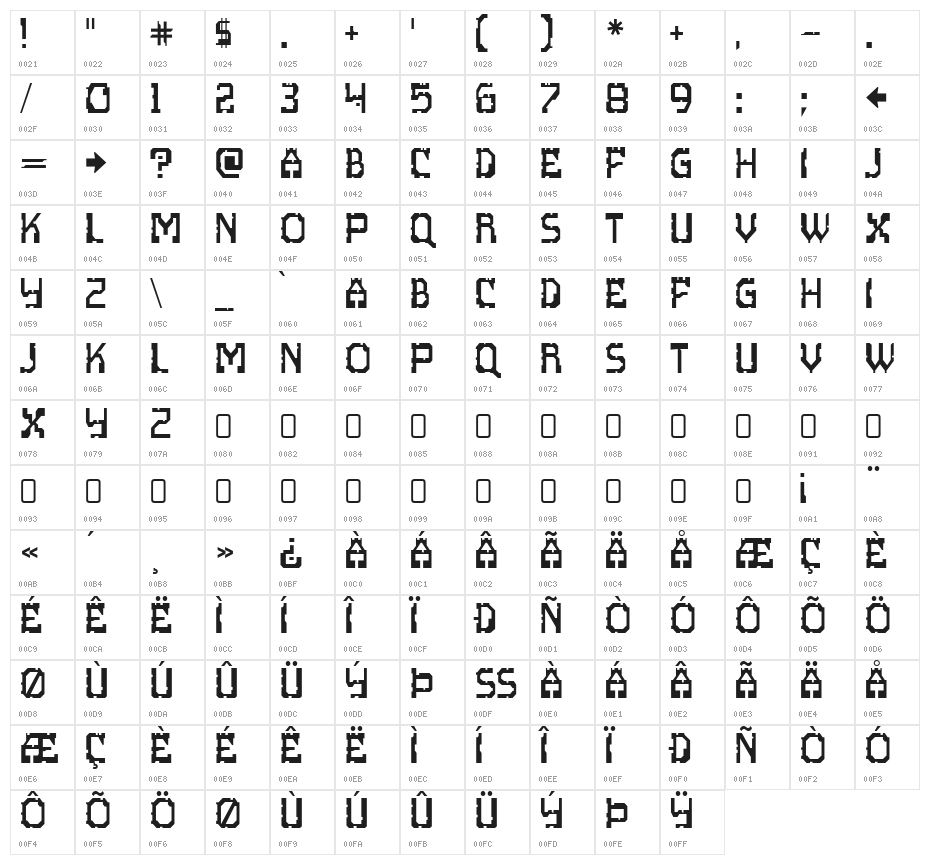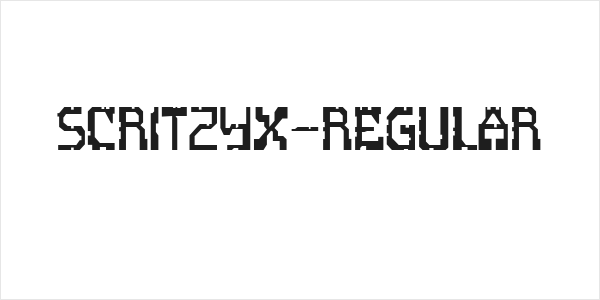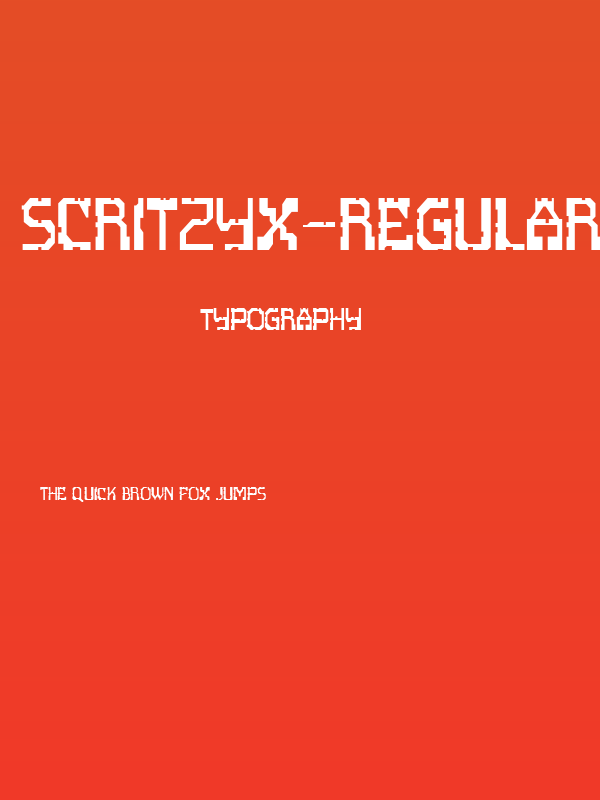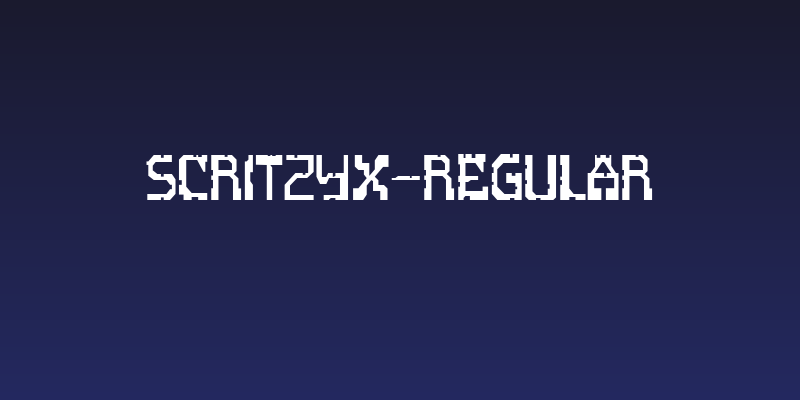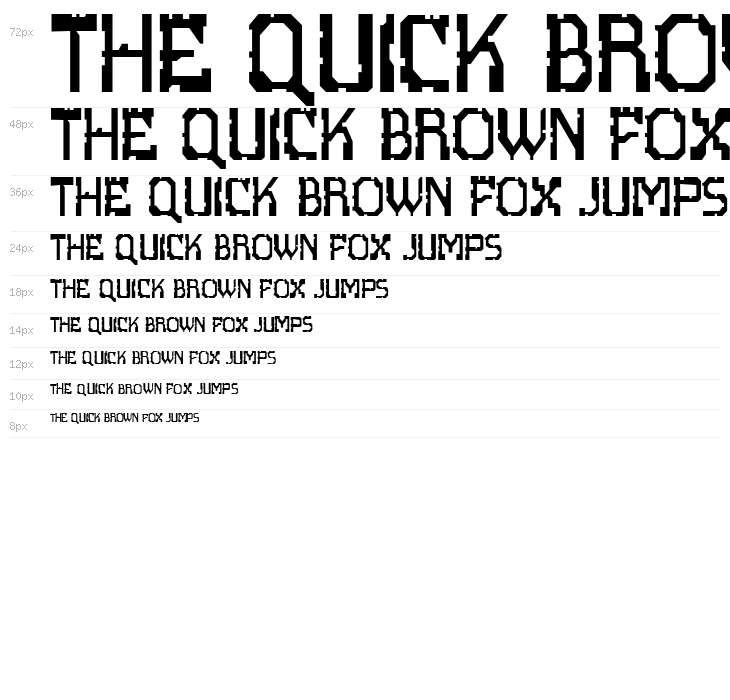
ScritzyX-Regular Font
ScritzyX-Regular Description
This font features a bold, geometric design with a pixelated, digital aesthetic. Each character is constructed with sharp, angular lines and blocky shapes, creating a distinctive, futuristic appearance. The uppercase and lowercase letters maintain a consistent style, with uniform height and width, contributing to a cohesive look. Numbers and special characters are designed to match the overall theme, ensuring visual harmony across all elements. The font's unique style makes it particularly suitable for projects that require a modern, tech-inspired look.
| Proposed Projects | Ideal for tech-related branding, video game design, digital art projects, and futuristic-themed posters. |